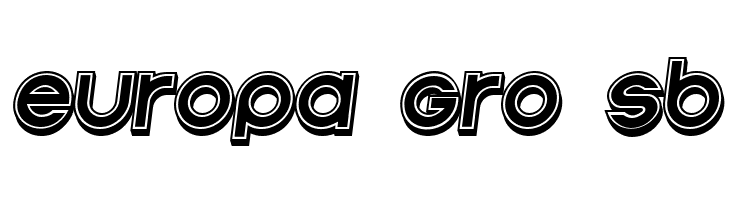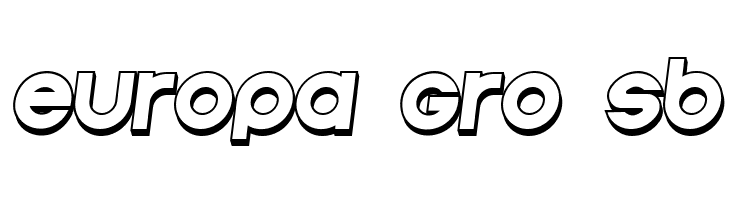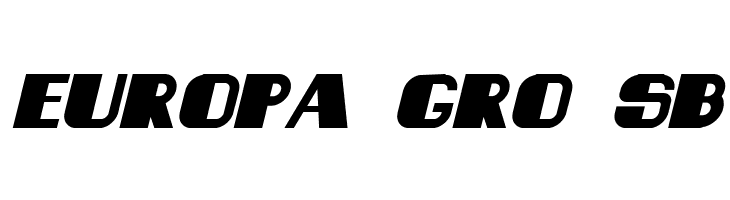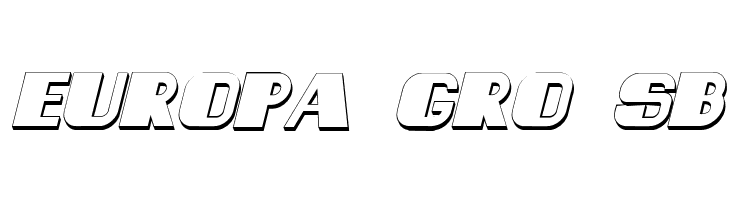
A monospaced, oblique font with a modern and technical style.
A modern, monospaced font with low contrast and uniform spacing.
A slanted, monospaced font with a modern and dynamic style.